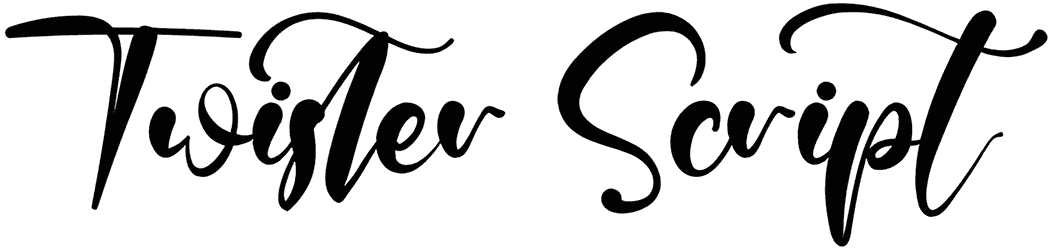
Twister Script Font
Here we proudly come again with a lovely calligraphy font commonly known as the Twister Script that has rounded letters and elongated edges.
This magical script font has the true potential to bring a vibe of dynamic, softness, vitality, or tenderness to a wide set of graphic content, such as business cards, illustrations, magazines, digital banners, or the user interface of applications. Also, don’t forget to check out the RB font collection to find daily updates.